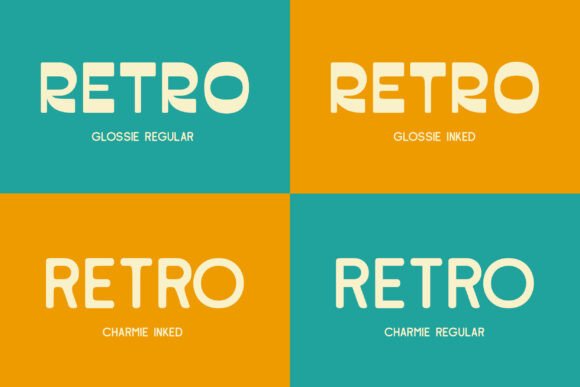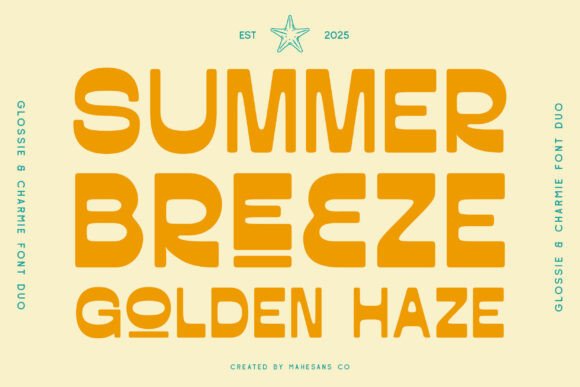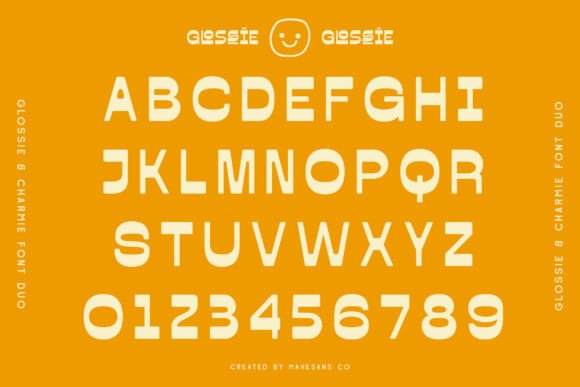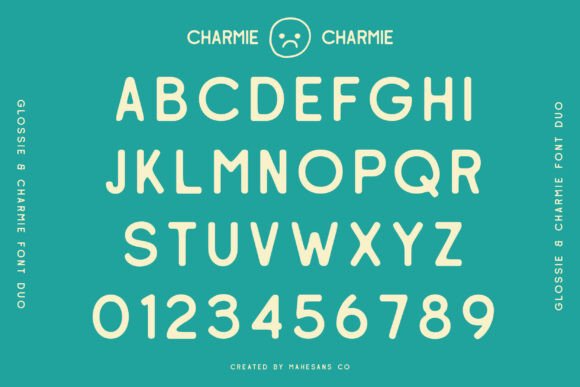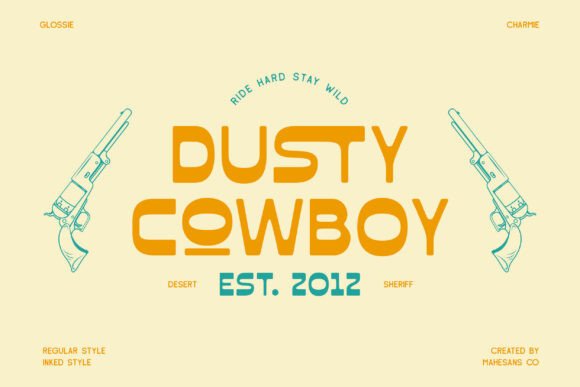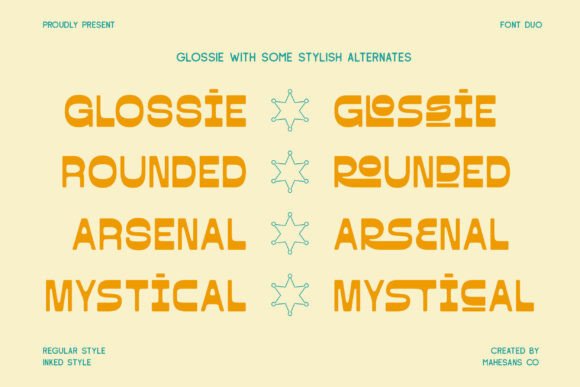
Introducing Glossie Regular Font: Elevate Your Designs with a Touch of Retro Charm
Are you on the hunt for a font that seamlessly blends nostalgia with modern flair? Look no further than Glossie Regular Font, part of the delightful Glossie & Charmie font duo. This versatile pairing is designed to bring a playful yet refined touch to your creative projects, making it an ideal choice for designers and crafters alike.
The Glossie & Charmie Font Duo: A Perfect Blend of Style and Simplicity
Glossie & Charmie is a thoughtfully crafted font duo that combines the best of both worlds: retro charm and modern simplicity. The duo features two distinct styles:
- Glossie: With its bold, modular geometric forms, Glossie is perfect for making a statement. Its sleek lines and contemporary feel make it an excellent choice for headlines, titles, and branding elements.
- Charmie: Charmie takes a softer approach with its rounded sans style, offering a friendly and approachable feel. It’s ideal for body text, descriptions, and any content that requires a more personal touch.
When paired together, Glossie and Charmie create a harmonious balance that adds depth and visual interest to any design.
Key Features of Glossie Regular Font
Glossie Regular Font, along with its companion font Charmie, offers a range of features that make it an excellent choice for various creative projects:
- Retro Charm: Glossie & Charmie draw inspiration from classic designs, infusing your work with a nostalgic feel that’s sure to captivate audiences.
- Modern Simplicity: Despite its retro roots, this font duo boasts a clean and modern aesthetic, ensuring your designs feel fresh and relevant.
- Versatility: Whether you’re working on branding, packaging, posters, editorial layouts, or digital content, Glossie & Charmie adapt effortlessly to different contexts.
- Inked Versions: Add an extra layer of texture and personality to your designs with the included inked versions of both fonts.
Applications of Glossie Regular Font
The possibilities are endless with Glossie Regular Font. Here are some of the many ways you can apply this versatile font duo:
- Branding: Create memorable logos, business cards, and letterheads that stand out with Glossie’s bold statement or Charmie’s friendly approach.
- Packaging: Elevate your product packaging with eye-catching labels, tags, and boxes that showcase your brand’s personality.
- Posters and Flyers: Grab attention with bold headlines and clear, readable body text that communicates your message effectively.
- Editorial Layouts: Add a touch of sophistication to magazines, newspapers, and blogs with Glossie & Charmie’s elegant yet approachable style.
- Digital Content: Enhance your website, social media, and online advertising with a font duo that shines on screens.
Why Choose Glossie Regular Font?
In a world where typography plays a crucial role in shaping brand identities and capturing audience attention, Glossie Regular Font stands out for several reasons:
- Unique Character: The blend of retro charm and modern simplicity gives Glossie & Charmie a distinctive character that sets them apart from more generic fonts.
- Legibility: Both fonts are designed with clarity in mind, ensuring your message is conveyed clearly across various mediums.
- Adaptability: From print to digital, Glossie & Charmie adapt seamlessly, making them a valuable asset for any designer or crafter.
| Font Name | Glossie Regular Font |
| Author | Mahesans Co |
Glossie Regular Font, as part of the Glossie & Charmie duo, offers a refreshing blend of style, simplicity, and character. Whether you’re a seasoned designer or a crafty DIY enthusiast, this versatile font pairing is sure to elevate your creative projects and leave a lasting impression on your audience. With its unique blend of retro charm and modern flair, Glossie & Charmie are more than just fonts—they’re a creative catalyst waiting to bring your ideas to life.